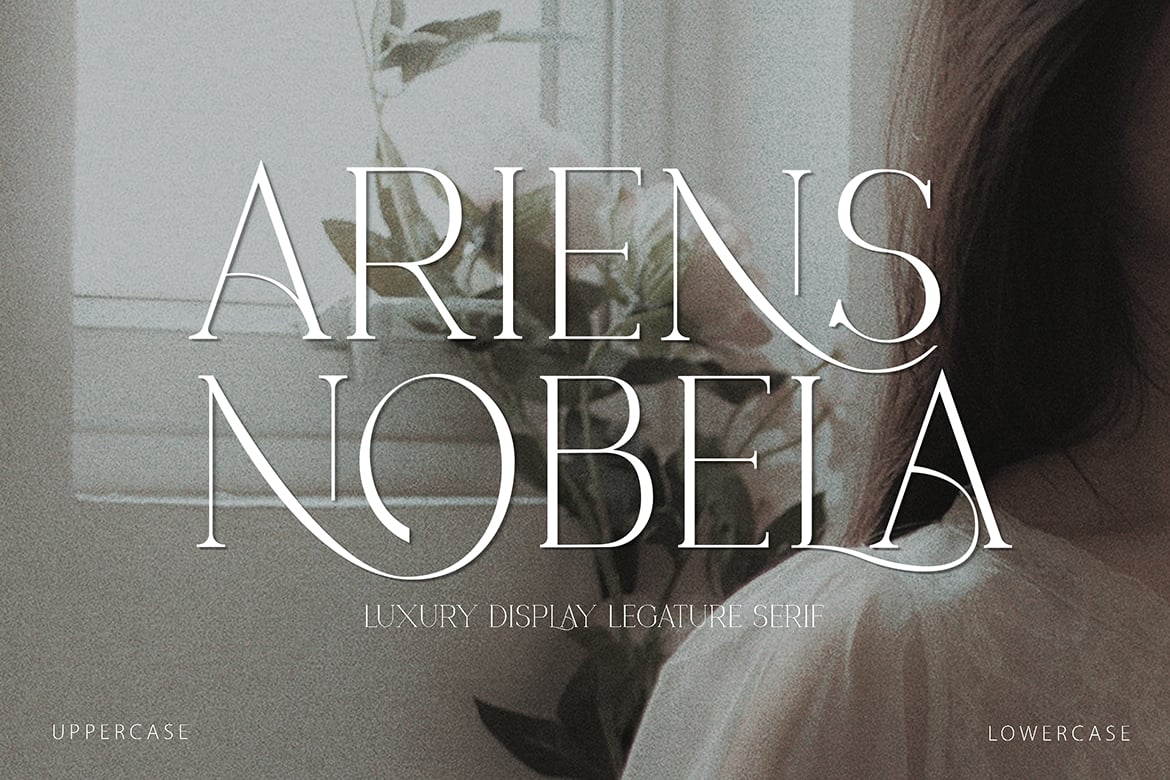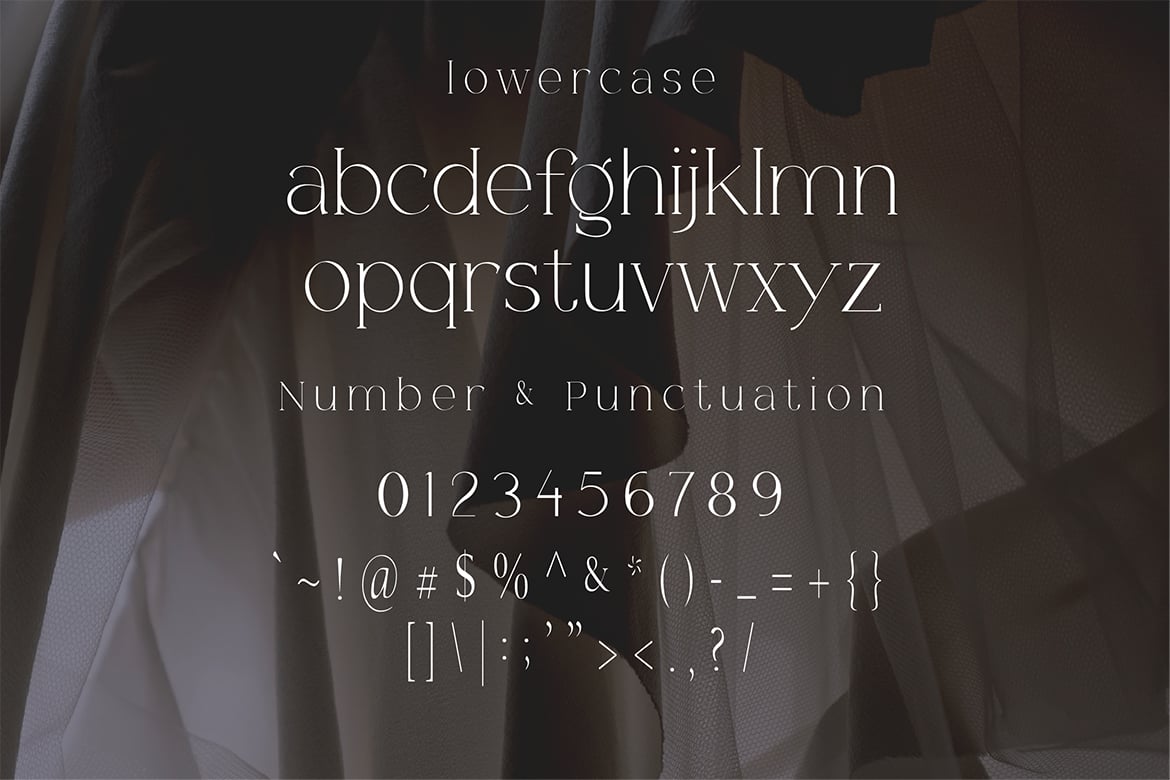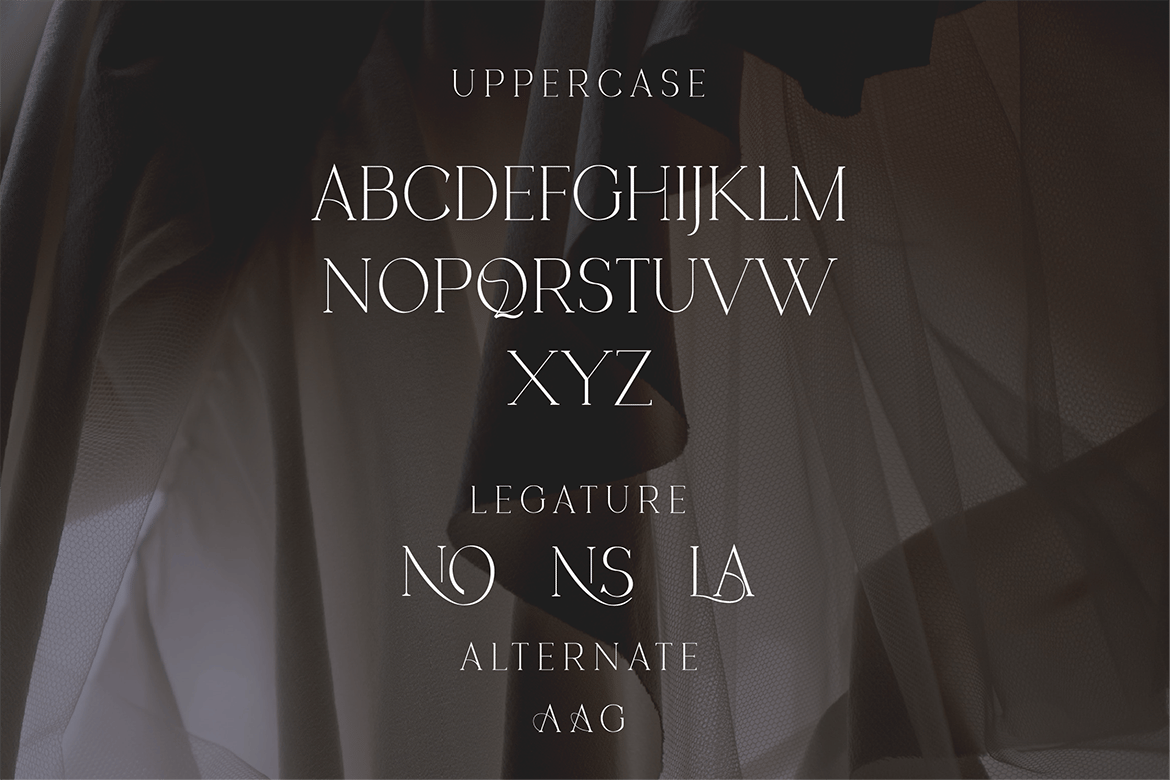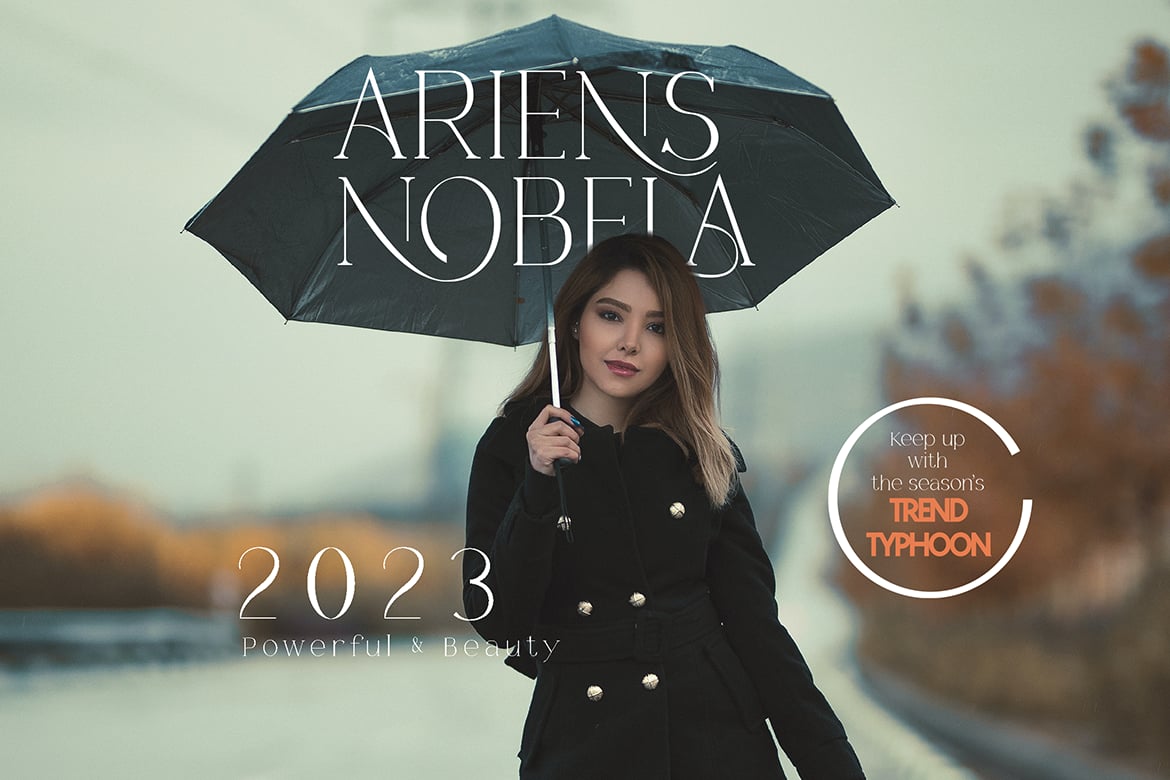
Ariens Nobela – Luxury Font
Introducing Ariens Nobela, an elegant, luxury, and beauty serif font. Its unique and lovely feel.
So perfect for you who needs a typeface for logo designs, magazine, social media, brochure, and many more.
- Numerals
- Beauty ligature of NO, NS, LA
- Alternate for A & G